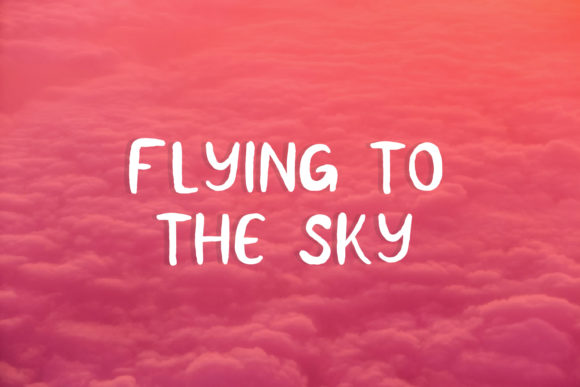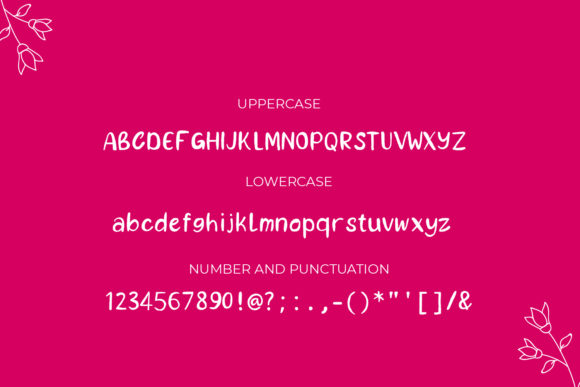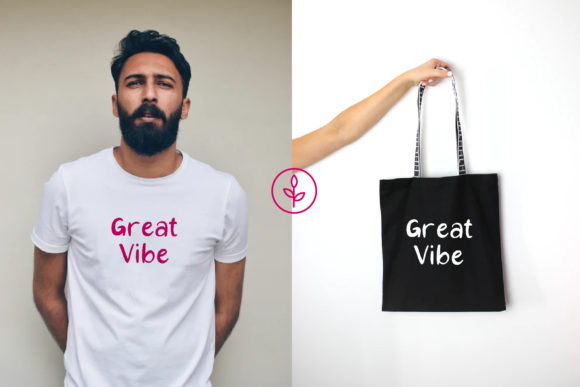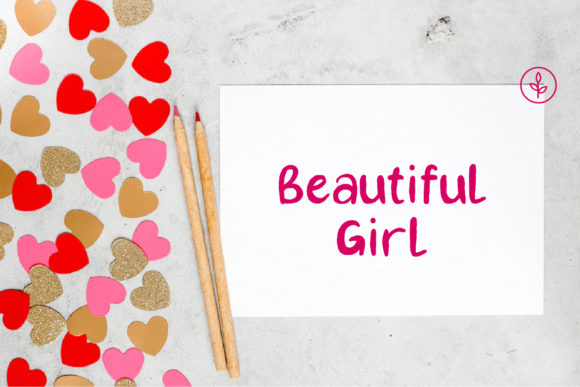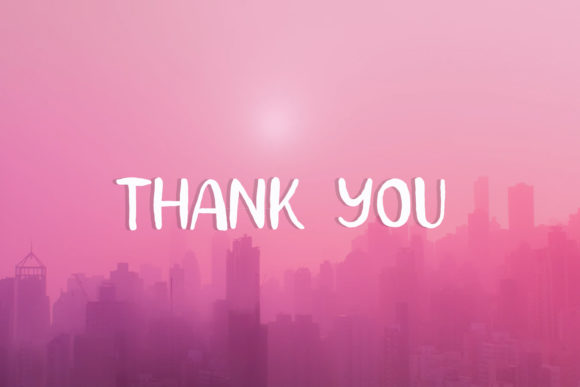
Cubbain Font: The Sweet and Friendly Display Font for Your Creative Projects
Are you tired of using the same old fonts for your designs? Look no further than Cubbain, a sweet and friendly display font that’s sure to bring a touch of personality to your creative projects. With its natural and unique style, Cubbain is incredibly versatile and can be used for a wide range of designs, from logos and branding to posters, packaging, and more.
The Unique Style of Cubbain
Cubbain’s unique style is what sets it apart from other display fonts. Its natural, hand-crafted look makes it feel approachable and friendly, while its distinctive features make it stand out from the crowd. Whether you’re looking to create a bold and eye-catching design or a more subtle and understated one, Cubbain has the potential to bring your creative ideas to life.
What Makes Cubbain So Versatile?
So, what makes Cubbain so versatile? For starters, its clean and simple design makes it easy to read and understand, even at large sizes. This means you can use it for a wide range of projects, from billboards and signage to social media graphics and website headers. Additionally, Cubbain’s friendly and approachable style makes it perfect for designs that require a personal touch, such as invitations, greeting cards, and more.
How to Use Cubbain in Your Designs
Using Cubbain in your designs is easy! Here are a few tips to get you started:
- Use Cubbain as a headline font to add a touch of personality to your designs.
- Pair Cubbain with other fonts to create a unique and eye-catching combination.
- Don’t be afraid to get creative and try new things – Cubbain’s versatility means it can handle just about any design challenge you throw at it!
The Benefits of Using Cubbain
So, what are the benefits of using Cubbain in your designs? Here are just a few:
- Unique style: Cubbain’s unique style sets it apart from other display fonts and makes it perfect for designers who want to add a touch of personality to their designs.
- Versatility: Cubbain’s clean and simple design makes it easy to use for a wide range of projects, from logos and branding to posters and packaging.
- Easy to read: Despite its unique style, Cubbain is easy to read and understand, even at large sizes.
- Customizable: With its wide range of design possibilities, Cubbain is perfect for designers who want to experiment with different styles and techniques.
Who Can Benefit from Using Cubbain?
Cubbain is perfect for a wide range of designers and crafters, including:
- Graphic designers: Cubbain’s unique style and versatility make it perfect for graphic designers who want to add a touch of personality to their designs.
- Branding experts: Cubbain’s clean and simple design makes it easy to use for branding and logo design projects.
- Digital artists: Cubbain’s friendly and approachable style makes it perfect for digital artists who want to add a personal touch to their designs.
- Crafters: Cubbain’s versatility and ease of use make it perfect for crafters who want to add a professional touch to their handmade projects.
In conclusion, Cubbain is a sweet and friendly display font that’s perfect for designers and crafters who want to add a touch of personality to their creative projects. With its unique style, versatility, and ease of use, Cubbain has the potential to bring each of your creative ideas to the highest level. So why not give Cubbain a try today and see what amazing designs you can create?